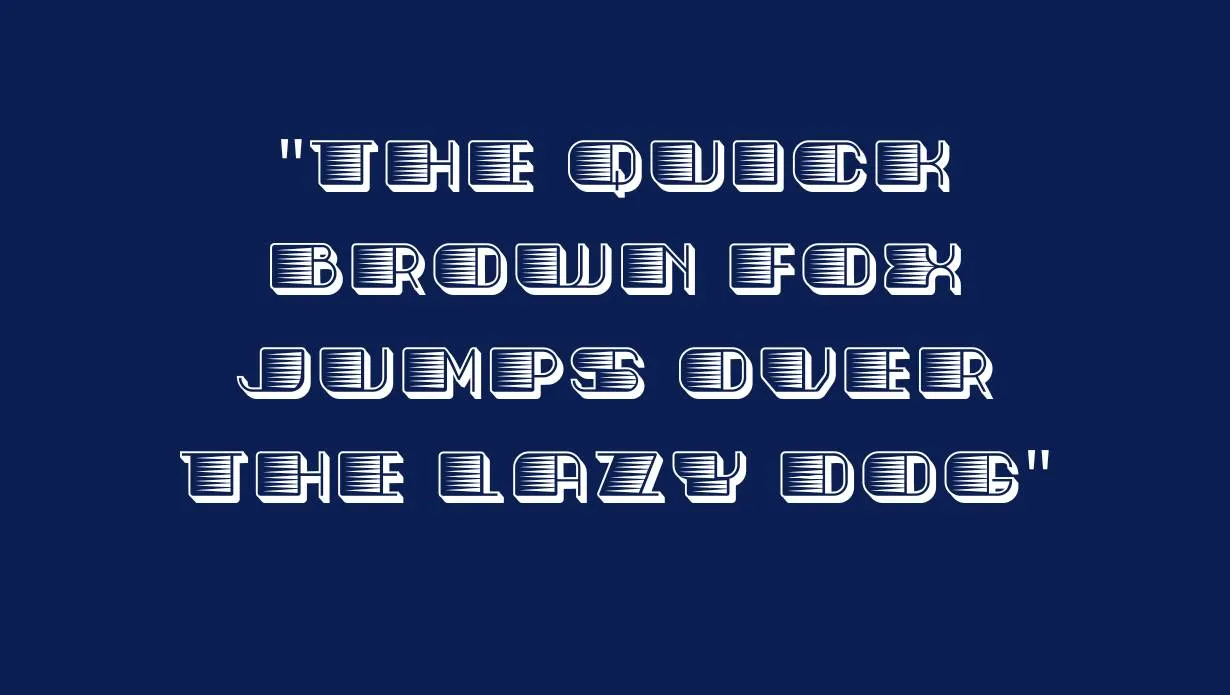
The Fast Font Sample zooms into your designs with a speedy and dynamic style. Perfect for projects that need a sense of motion or urgency, its sleek characters convey a fast-paced energy.